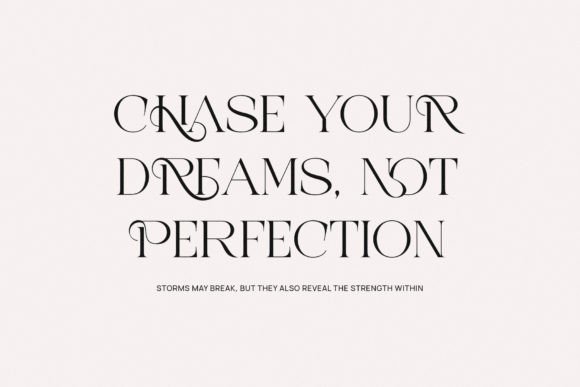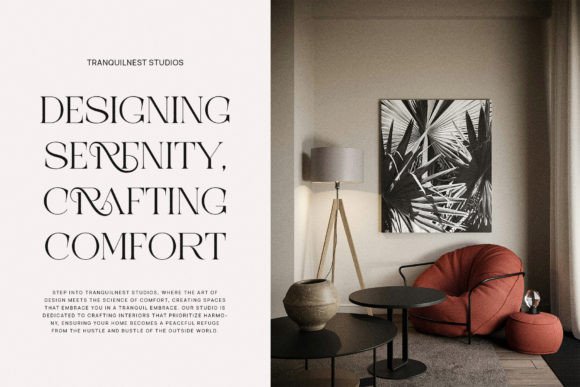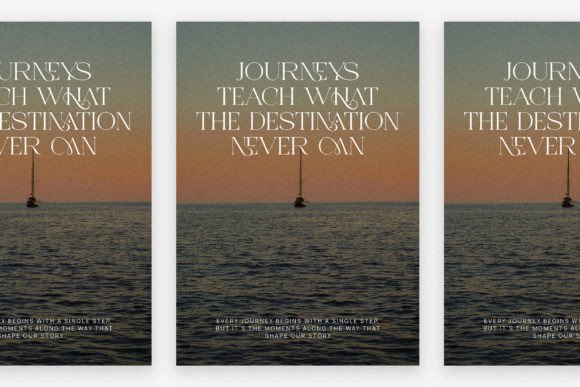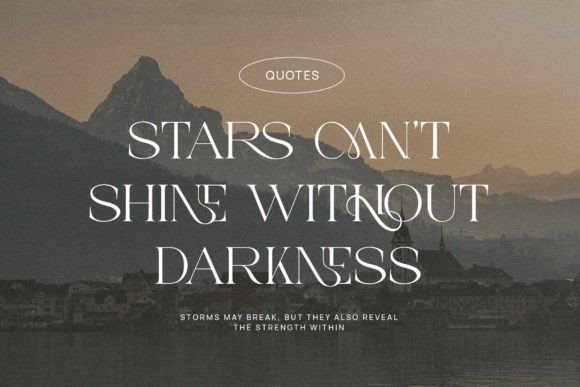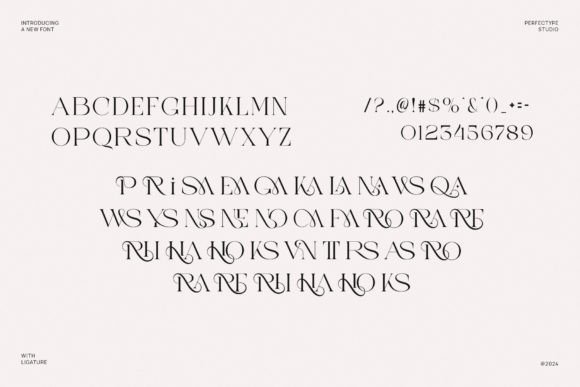
Introduction to Girona Font
Girona is a classy serif typeface with a touch of elegance.
It’s perfect for adding a sophisticated vibe to your designs With its simple yet refined style, Girona stands out beautifully in any project, from invitations to branding.
Key Features of Girona Font
Why Choose Girona Font?